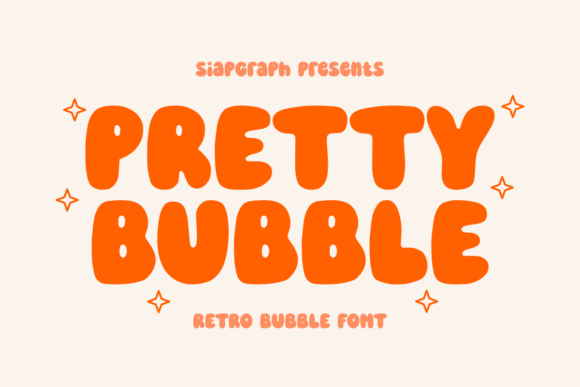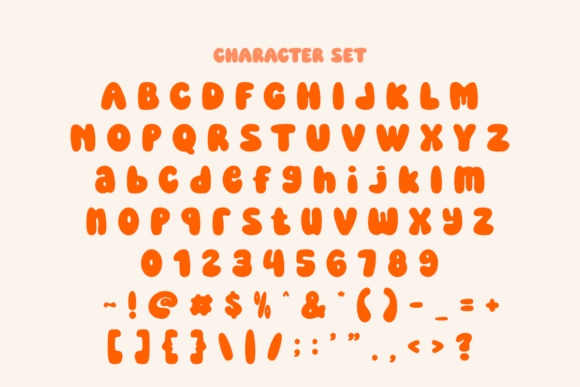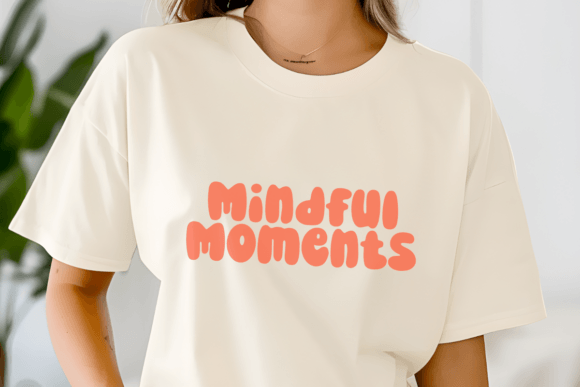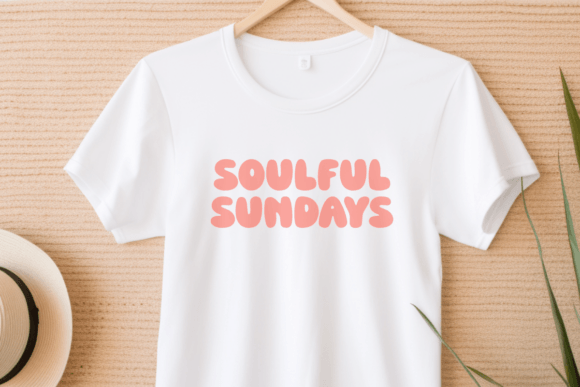
Pretty Bubble Font: Fun Retro Display Typography for Cricut Crafts
About the Pretty Bubble Font
Explore the possibilities with Pretty Bubble Font, a font that offers both beauty and functionality. Pretty Bubble is a fun retro bubble display font. font inspired by birthday invitation typography. This font is perfect for various designs that are retro, fun, cute, and bubbly. This font is perfect for t-shirt designs, mugs, planners, interior KDPs, journals, invitations, cards, sublimation, apparel, SVG, Cricut, silhouette, laser, laser cut, quotes, wall art, pillows, tumblers, stickers, and many more another.
Pretty Bubble’s playful, retro style shines in headlines, short text blocks on posters, and branding for products targeting a young, fun-loving audience. It works exceptionally well for packaging design, especially for sweets, children’s products, or celebratory items. Avoid using it for body text or UI elements; its low readability hinders usability in extended text.
Consider pairing Pretty Bubble with a clean sans-serif like Open Sans for a balanced contrast, or a more vintage-inspired serif like Playfair Display for a cohesive retro feel. A simple, geometric sans-serif would also provide a modern counterpoint.
The font exudes a cheerful, nostalgic energy, best suited for projects emphasizing fun, lightheartedness, and a touch of retro charm. Avoid using it for serious or corporate branding.
Pretty Bubble Font Usage Examples
Pretty Bubble Font Example